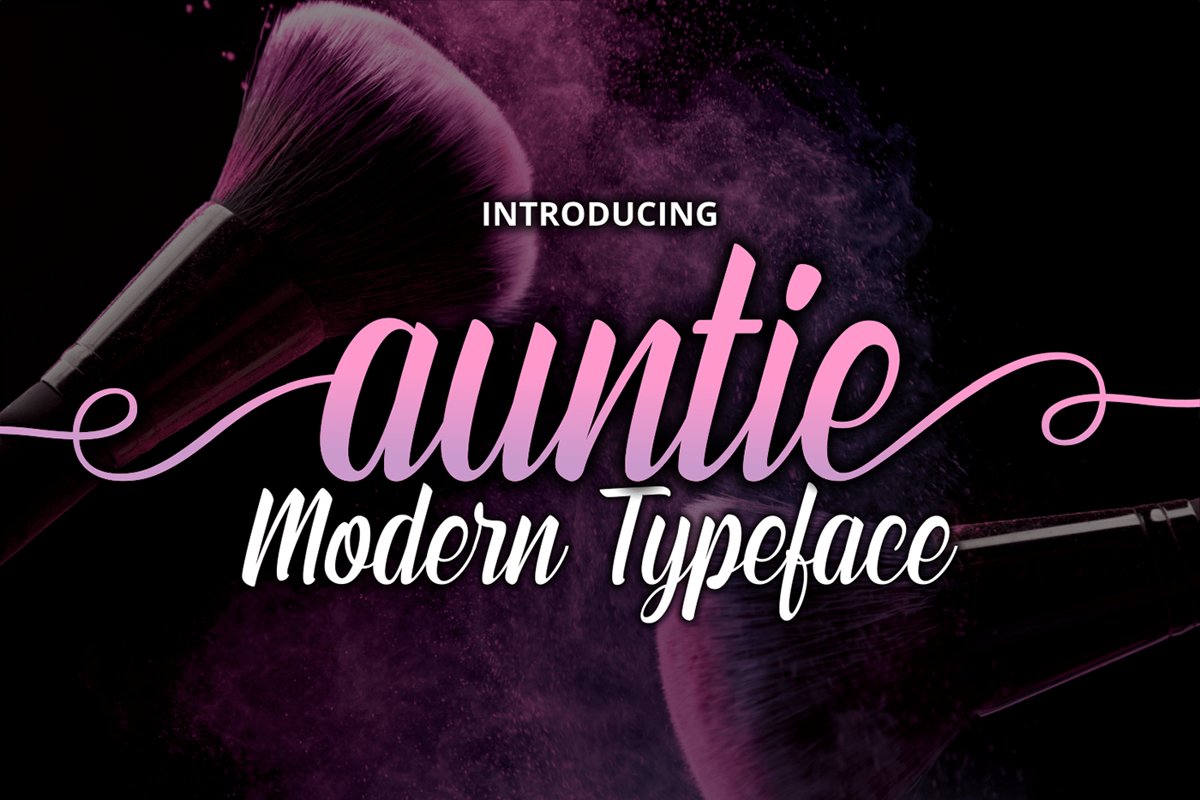
Auntie
auntie
Auntie is a sweet and casual handwritten font with an incredibly friendly feel. Whether you’re looking for fonts for Instagram or calligraphy scripts for DIY projects, this font will turn any creative idea into a true piece of art!